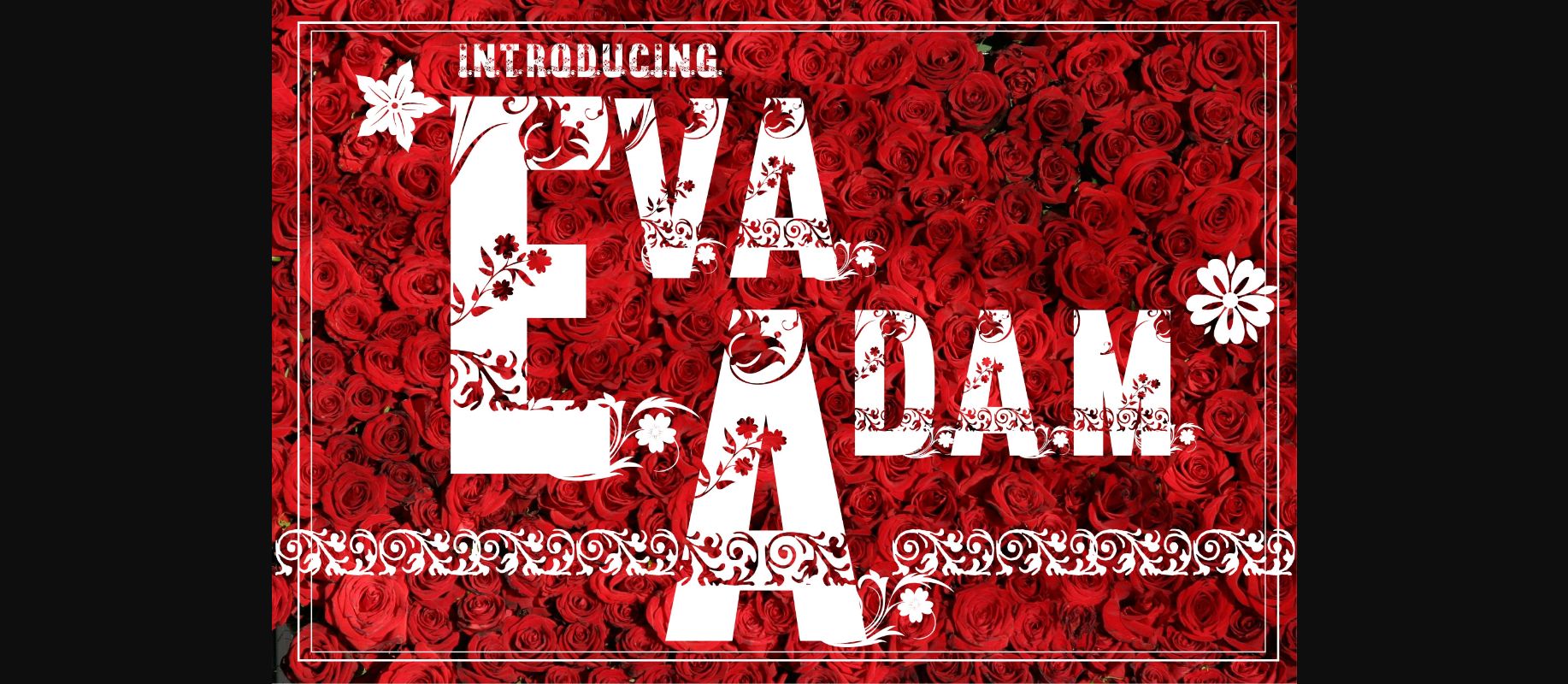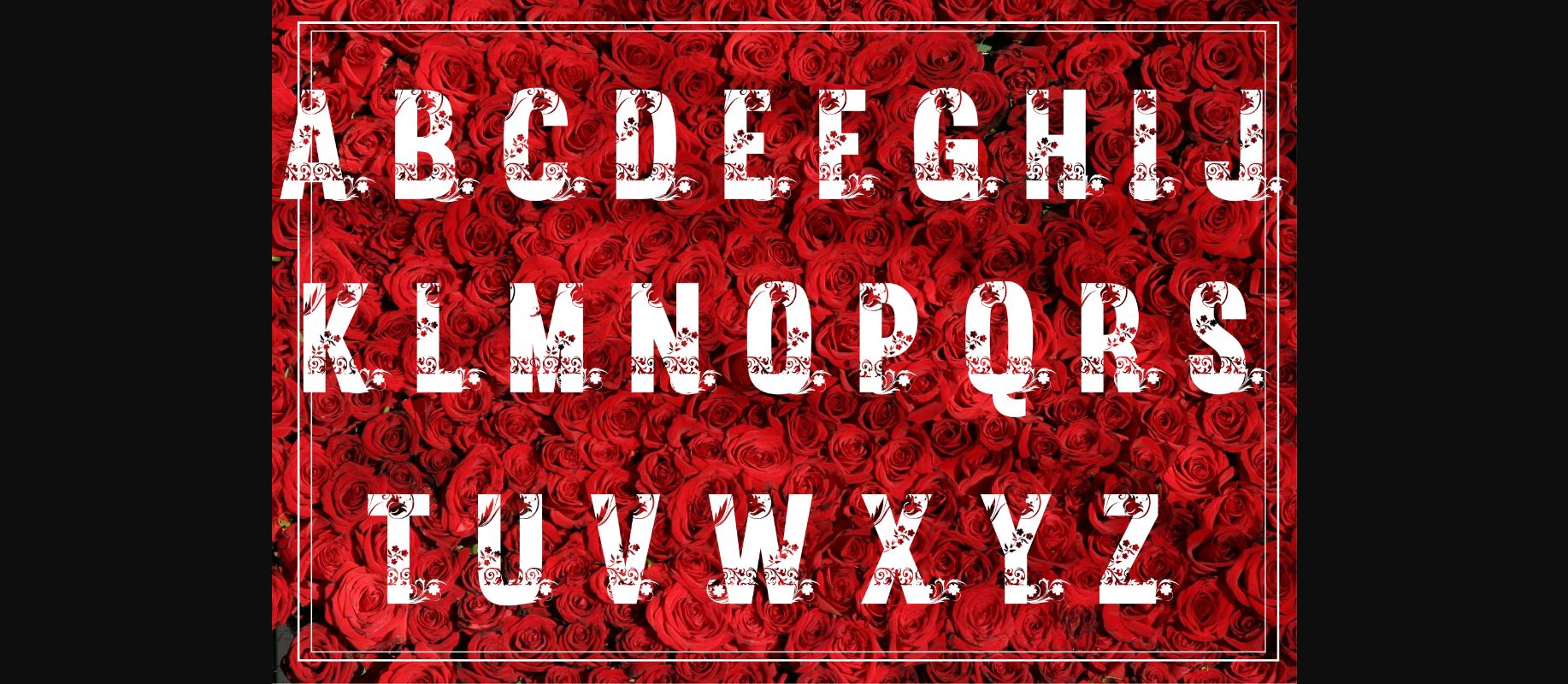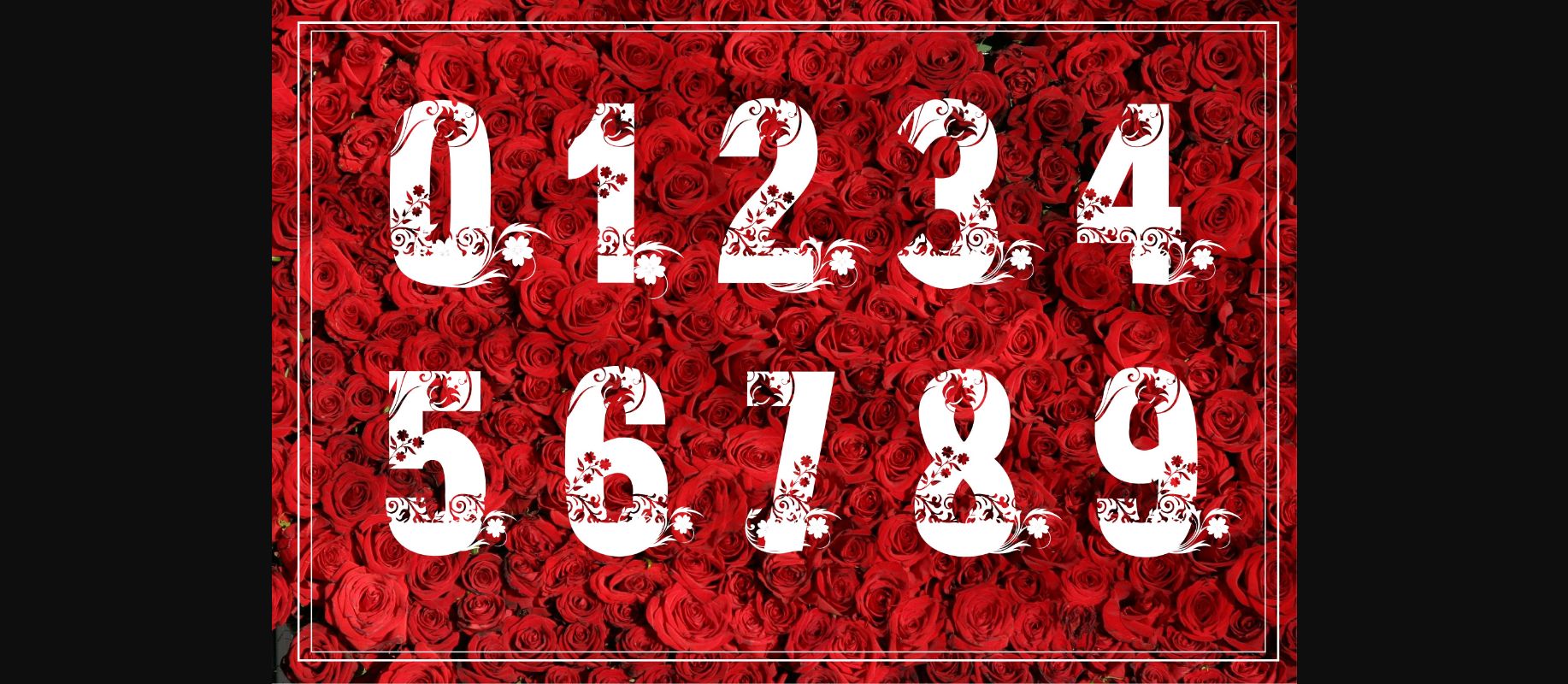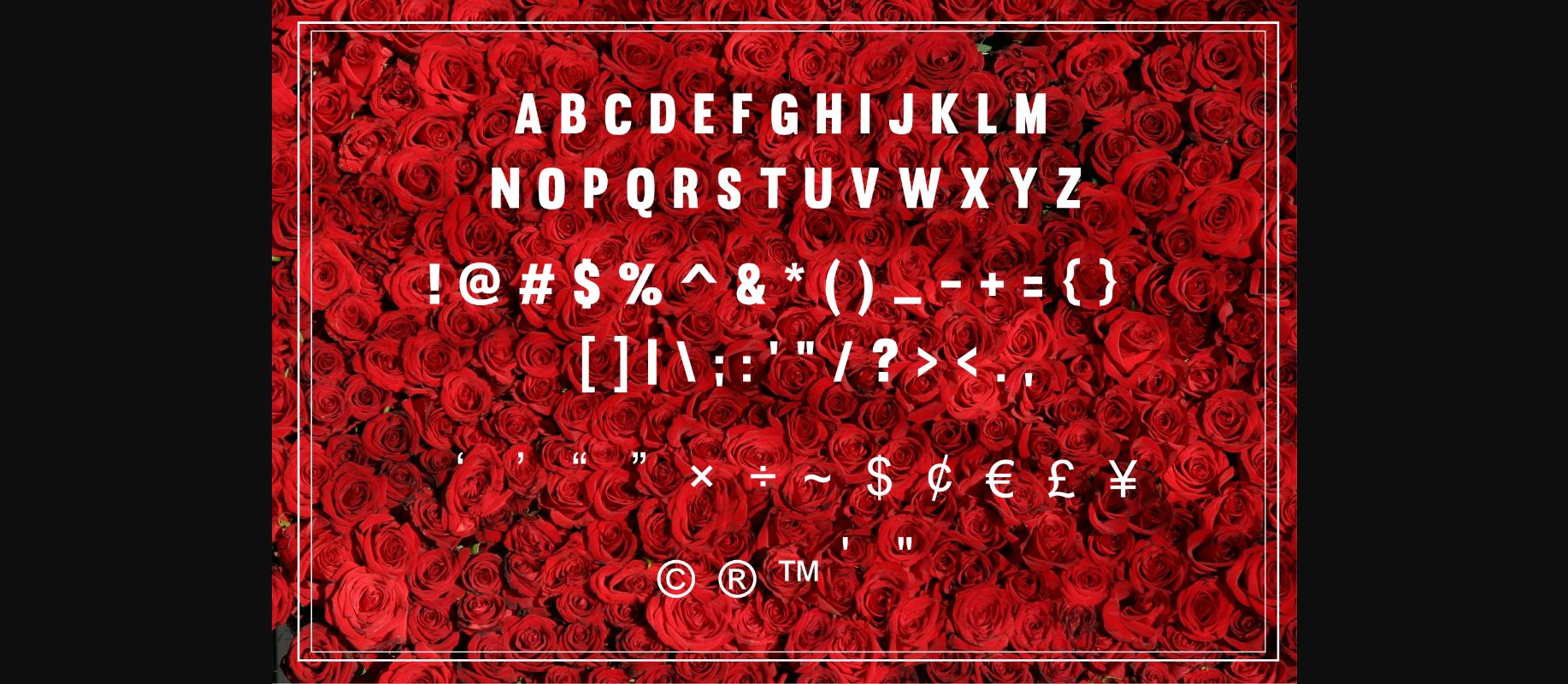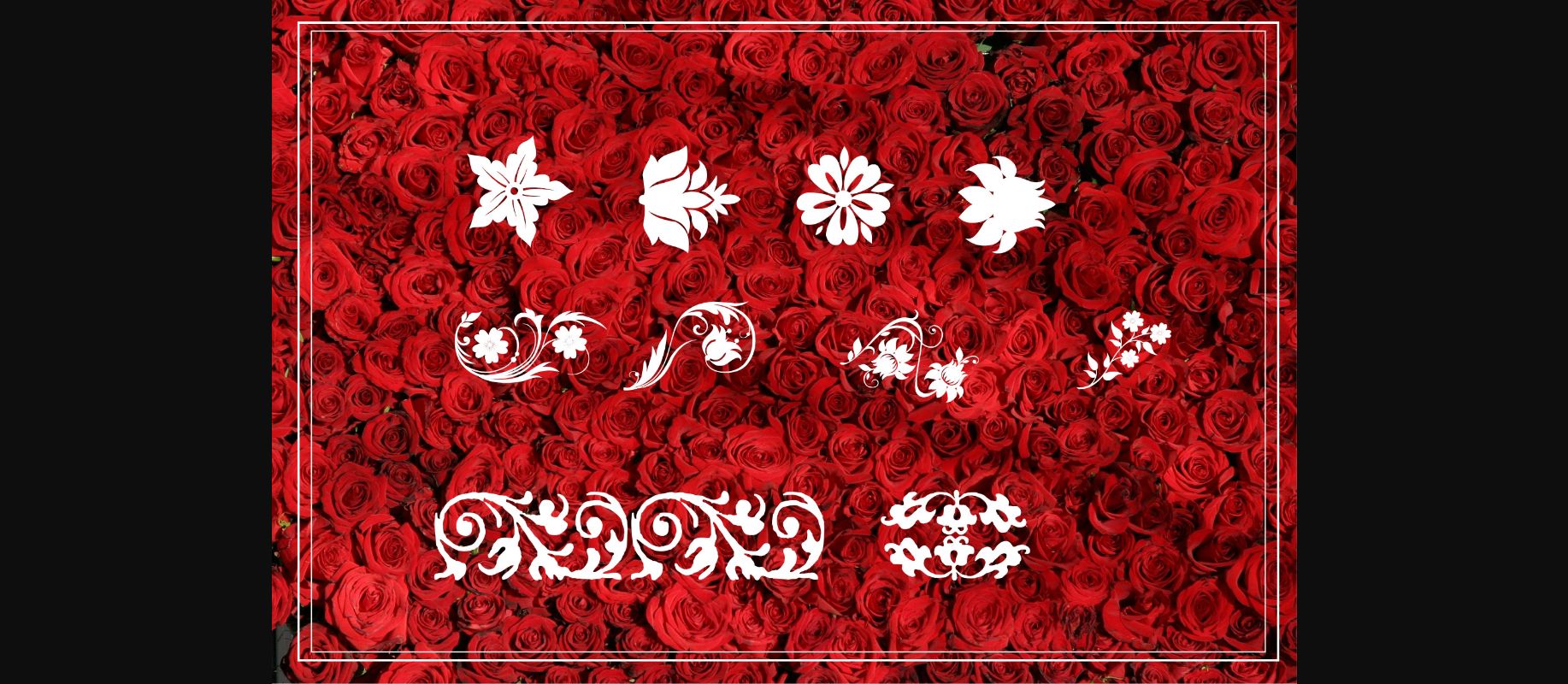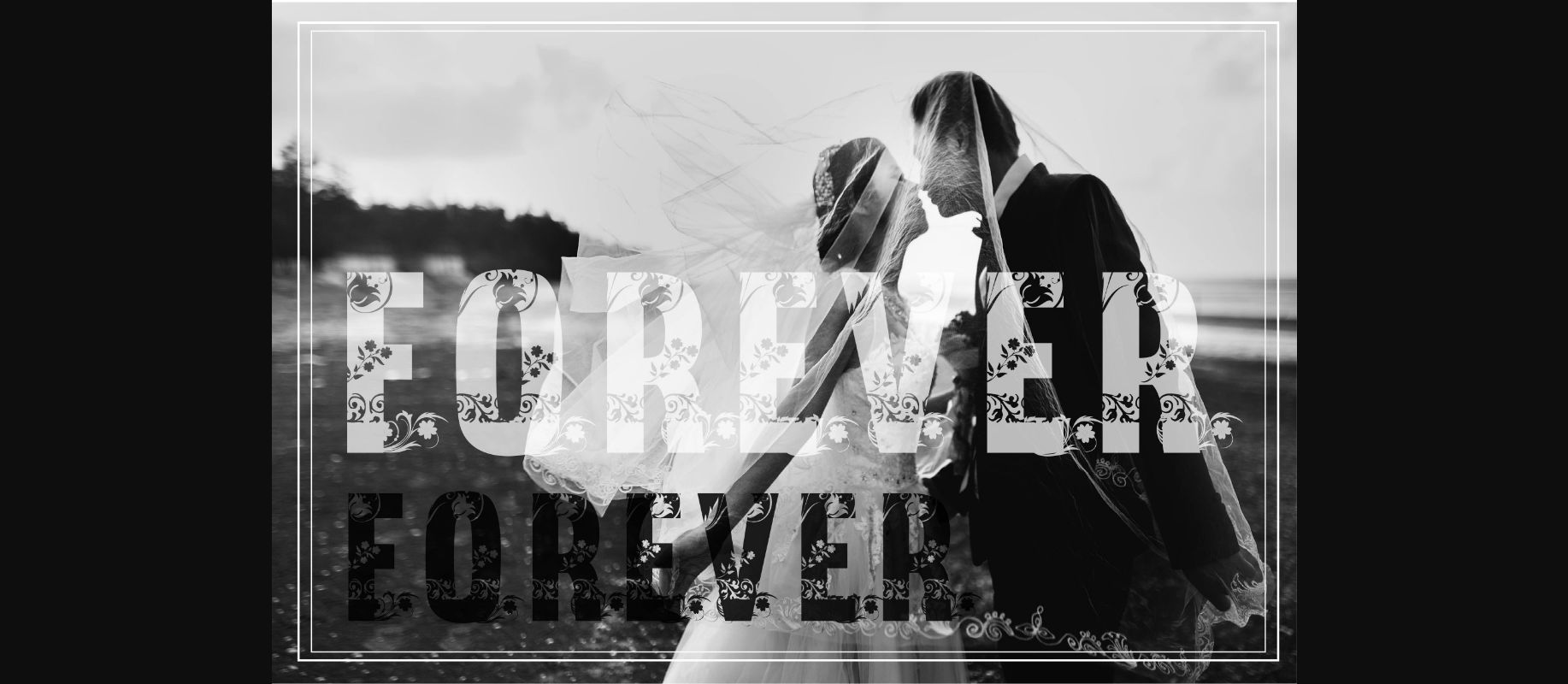
Eva and Adam Font
About Eva and Adam Font
Eva and Adam is a beautiful decorative font. It features amazing flower-themed characters. Use it to brighten up any wedding project!